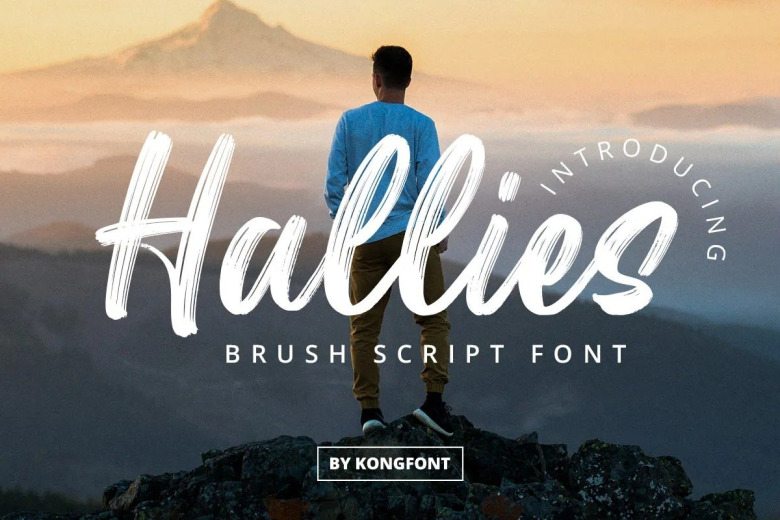
Hallies Font
Hallies is a new modern brush typeface created by Kong Font with an irregular baseline, a contemporary approach to design, handmade natural and suitable for use in title design such as clothing, invitations, book titles, stationery designs, quotes, branding, logos, T-shirts, packaging designs, posters, and more. Complete with uppercase and lowercase letters, as well as multi-lingual support, numbers and punctuation.